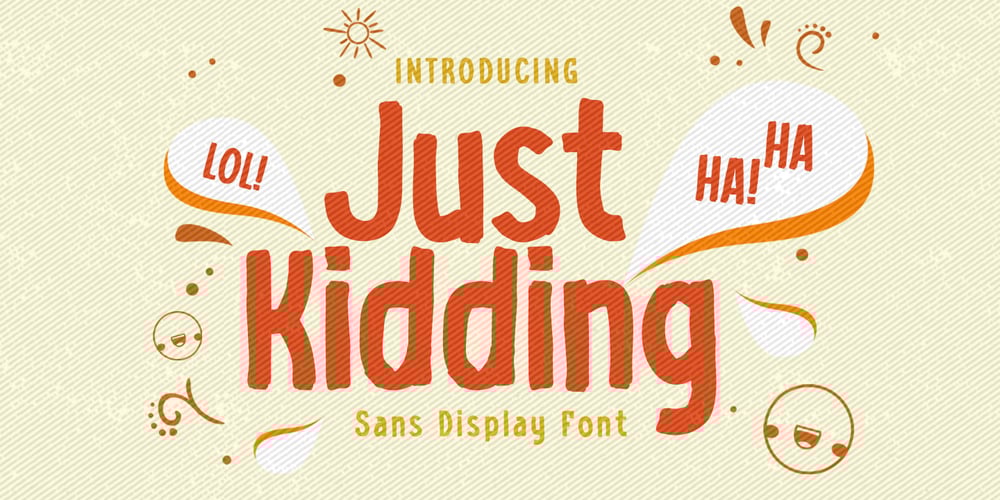
Just Kidding Font Family was designed by Abdul Malik Wisnu, Anang Fibriyanto and published by Gassstype. Just Kidding contains 1 styles and family package options. Here comes a New font,Introducing Just Kidding is Sans Display Font,This Font Authentic that is written casually and quickly. Then scanned and carefully drawn into vector format.This handmade font will make your design has a beautiful natural touch for each details. It is perfect for any design project as Invitation,logo, book cover, craft or any design purposes.this font is great for your creative projects such as watermark on photography, and perfect for logos & branding, invitation,advertisements,product designs, stationery, wedding designs,label ,product packaging, special events or anything that need handwritting taste.